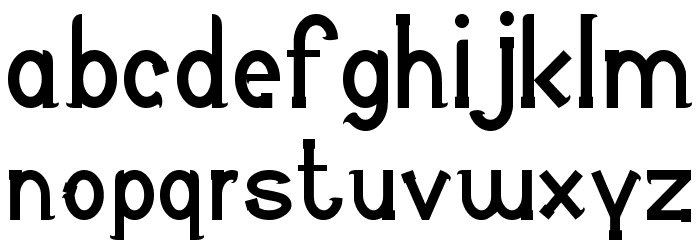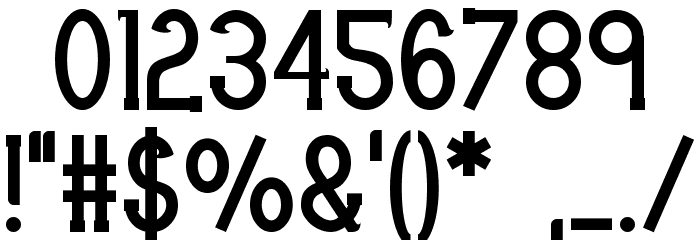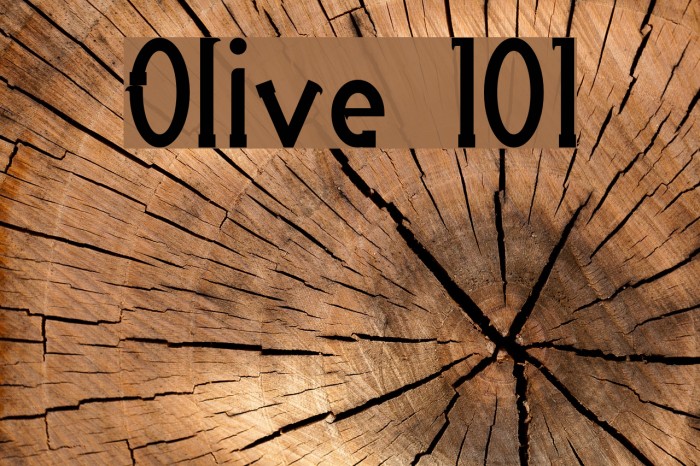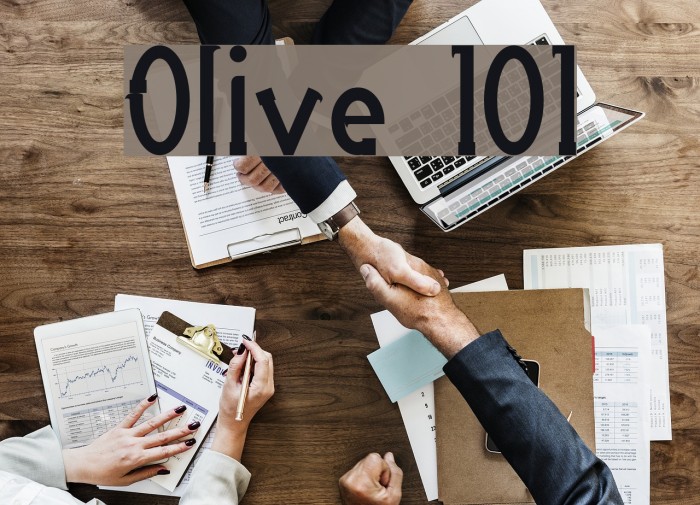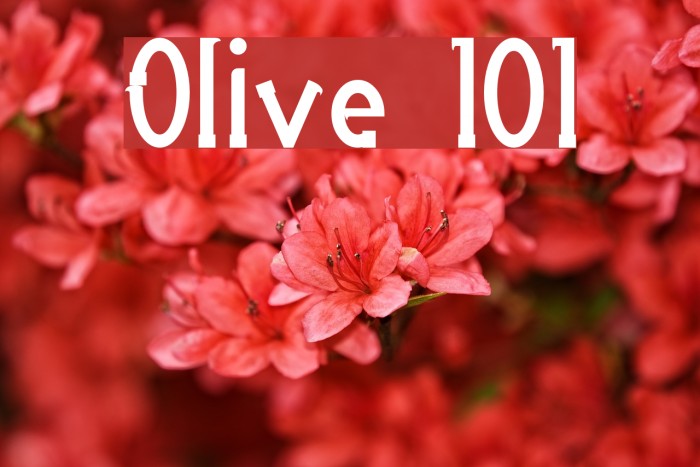
Olive 101 Font
This font exhibits a unique blend of geometric and playful elements, characterized by its bold and slightly condensed letterforms. The uppercase letters feature a distinct angularity, while the lowercase letters maintain a more rounded and approachable appearance. The numerals are consistent with the overall style, offering clarity and readability. Special characters are well-integrated, maintaining the font's cohesive aesthetic. The font's design is both modern and quirky, making it suitable for a variety of creative applications.
A bold, geometric font with playful and modern characteristics.
- Proposed Projects: Ideal for branding, posters, headlines, and creative projects that require a modern and distinctive look.